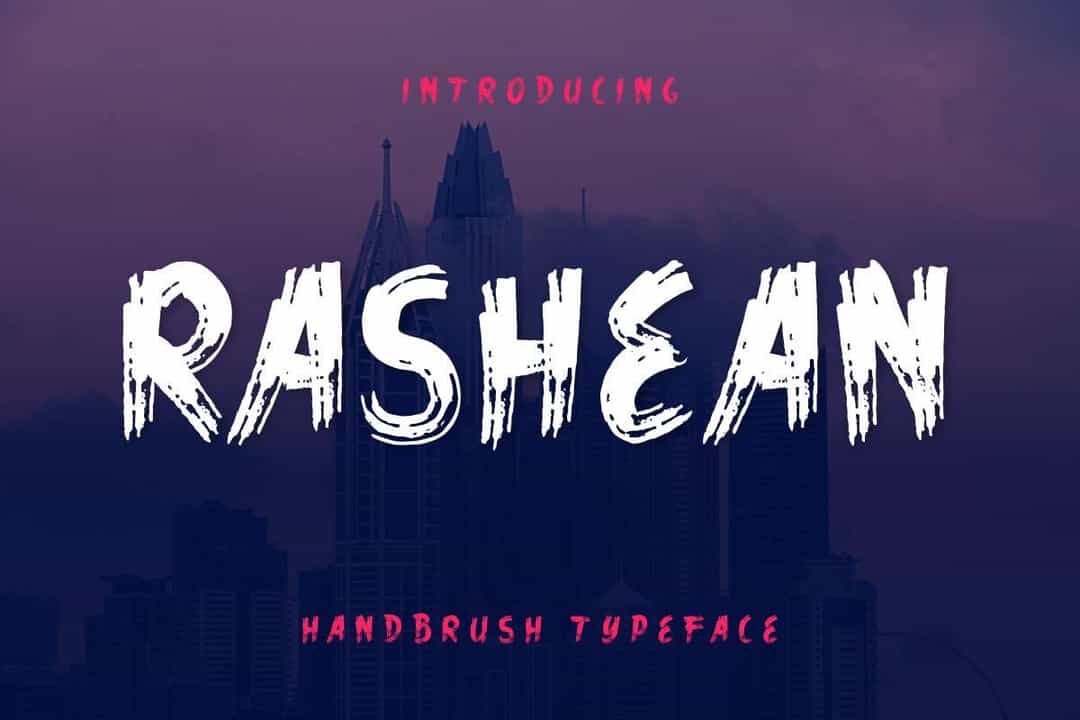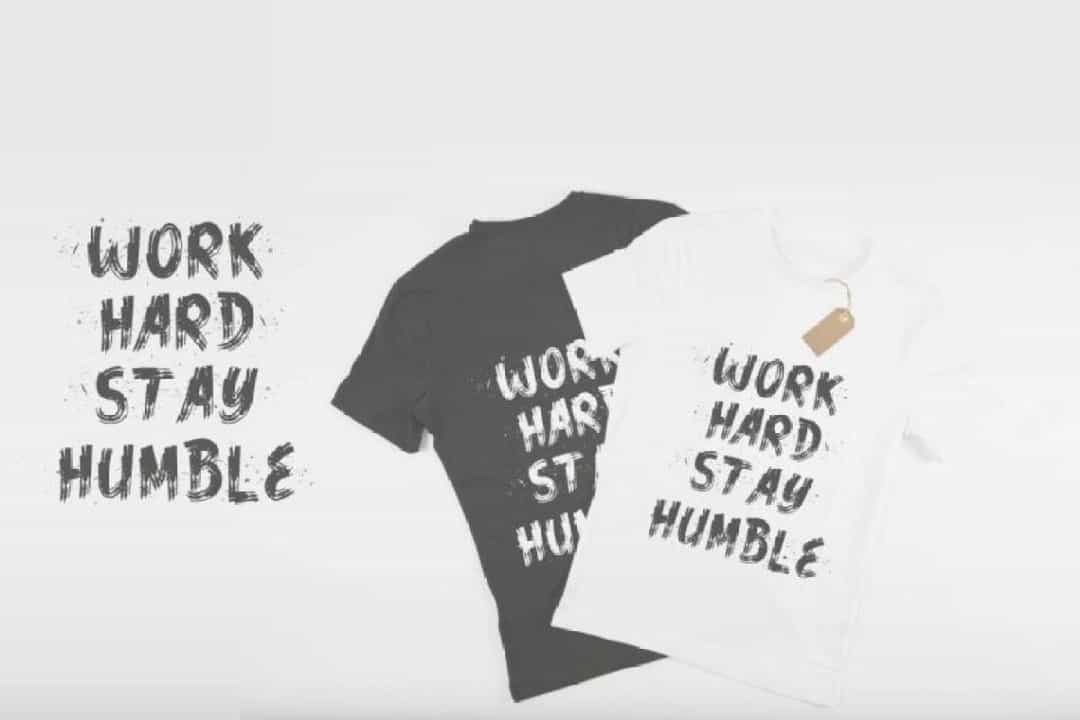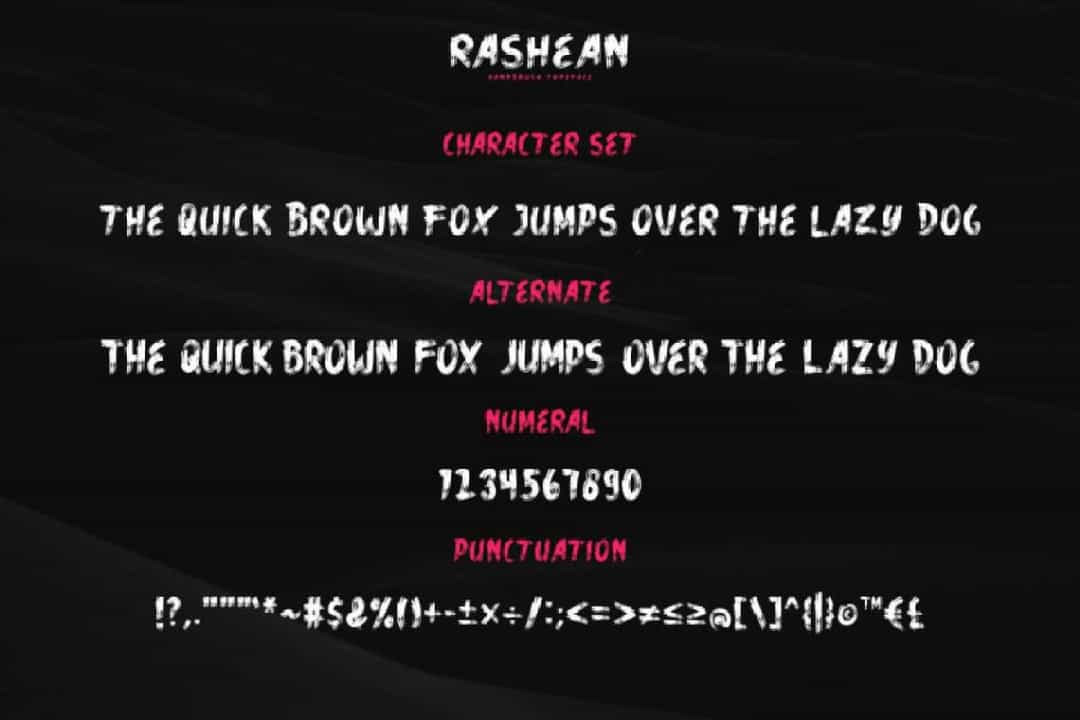
Discover Rashean Brush Font, part of the Brush Blackletter collection—a versatile and unique font perfect for adding a personal touch to your projects. Download it for free and enjoy crafting designs with style, from invitations to social media posts. This font is available exclusively for personal use, giving you the freedom to create without limits. Unlock your creativity with Rashean Brush Font today!
Rashean Font emerges as a great combination of the brush pen and pencil which makes it very cute and real. Apply this beautiful and one of a kind handwritten font to any DIY project and it will look amazing! Rashean Font is a contemporary, hand-drawn typeface. The design of the car is very sophisticated and refined.